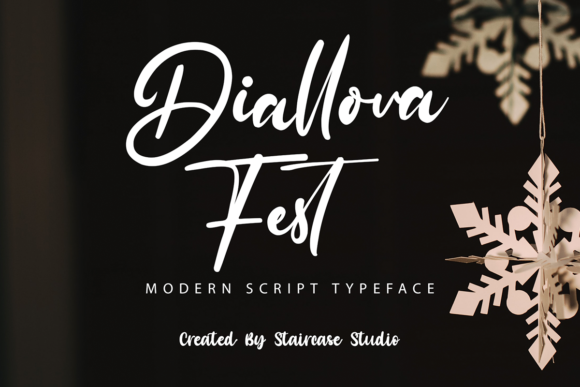
Diallova Fest - A Stunning Script Font for Memorable Designs:
Prepare to be mesmerized by Diallova Fest, a captivating script font that will infuse your designs with an air of elegance and distinction. This modern masterpiece is meticulously crafted to evoke the allure of hand-lettered artistry, making it the perfect choice for creating logos, branding, posters, and more that demand attention.
With Diallova Fest, you'll embark on a typographic adventure that will leave a lasting impression. Its graceful curves and expressive strokes will add a touch of sophistication to any project, whether you're designing for print or digital platforms. Let the beauty of this font captivate your audience, captivating them with its timeless charm and leaving an indelible mark on their minds.
Unleash your creativity and explore the endless possibilities that Diallova Fest offers. This versatile font is perfect for adding a personal touch to your designs, making them stand out from the crowd. Whether you're creating logos that command attention or crafting invitations that exude elegance, Diallova Fest will elevate your designs, leaving you with breathtaking results.
Imagine your designs adorned with the exquisite artistry of Diallova Fest, capturing the essence of opulence and refinement. Its intricate details and flowing lines will transform your creations into masterpieces that resonate with your audience. Experience the magic of this extraordinary font and elevate your designs to new heights of beauty and sophistication.